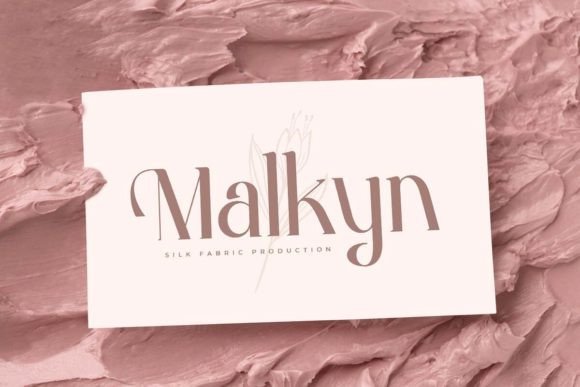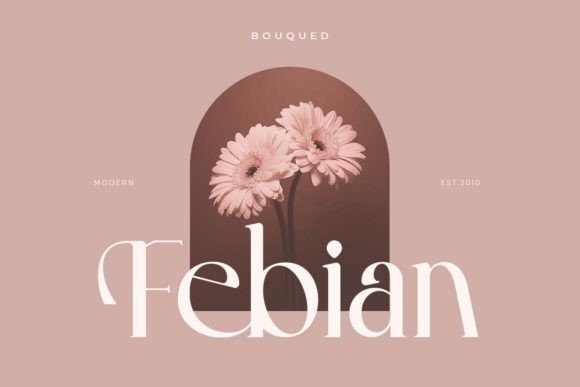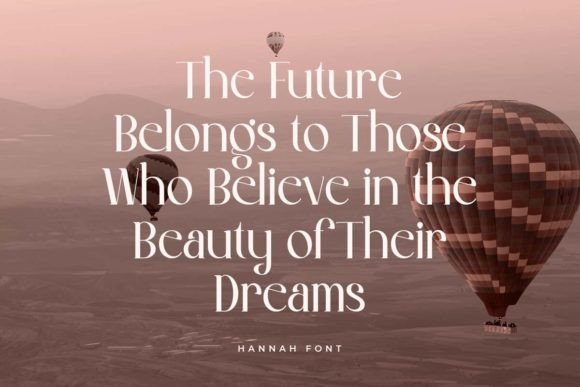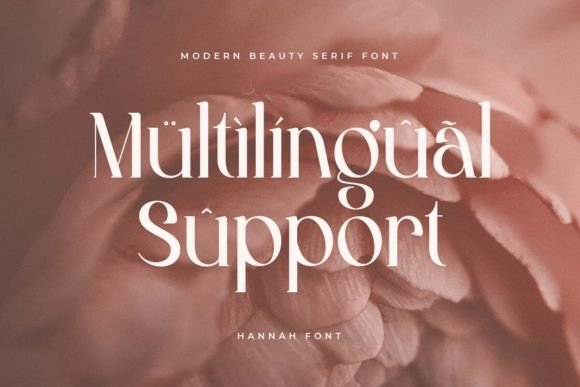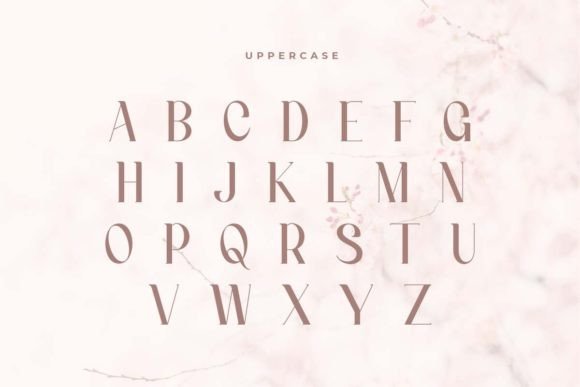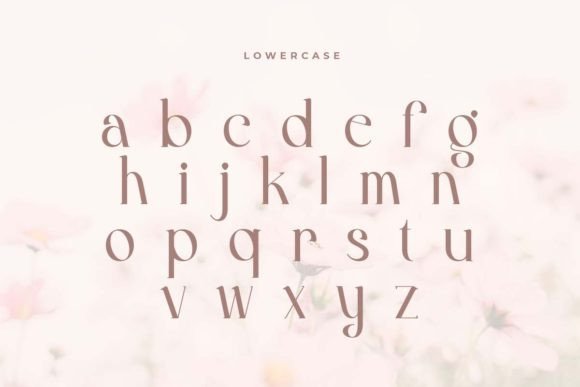
The Elusive Font: A Designer’s Quest for Timeless Elegance
I still remember the countless hours I spent searching for the perfect font for a client’s branding project. The goal was to create a sophisticated, yet modern look that would appeal to a wide audience. As I scrolled through font after font, I found myself stuck in a sea of sameness – until I stumbled upon Hannah Font. Its elegant serif lines and refined aesthetic immediately caught my attention, and I knew I had found the one.
What I Love About Hannah Font
- ✨ Sophisticated letterforms: Each letter is meticulously crafted to exude refinement and elegance.
- ✅ Timeless yet contemporary: Hannah Font seamlessly blends classic and modern elements, making it perfect for projects that demand a unique aesthetic.
- 🌈 Versatile: From luxury branding to editorial design, Hannah Font adapts effortlessly to various creative applications.
While Hannah Font is an exceptional choice, it’s not without its quirks. For instance:
- 🤔 Limited availability of certain glyphs: Some users may find that certain special characters or glyphs are not readily available.
- ⚠️ Occasional kerning issues: As with any font, some users may encounter kerning issues, particularly when using certain character combinations.
- Experiment with OpenType features, such as Stylistic Alternates and Swashes, to add a touch of elegance to your design.
The Designer’s Inspiration: A Backstory
While the true story behind Hannah Font’s creation remains a mystery, it’s easy to imagine that its designer was inspired by the elegance of classic typography and the sophistication of modern design. Perhaps they sought to create a font that would bring a touch of refinement to everyday designs, making them stand out in a crowded creative landscape.
Q: What makes Hannah Font suitable for luxury branding?
A: Hannah Font’s elegant letterforms, refined aesthetic, and sophisticated feel make it an excellent choice for luxury branding projects.
Q: Can I use Hannah Font for body text?
A: While Hannah Font is beautiful, it’s primarily designed for headlines and titles. For body text, consider using a font with better legibility at smaller sizes.
Q: Is Hannah Font suitable for digital use?
A: Absolutely! Hannah Font is optimized for both print and digital use, making it a versatile choice for various creative applications.